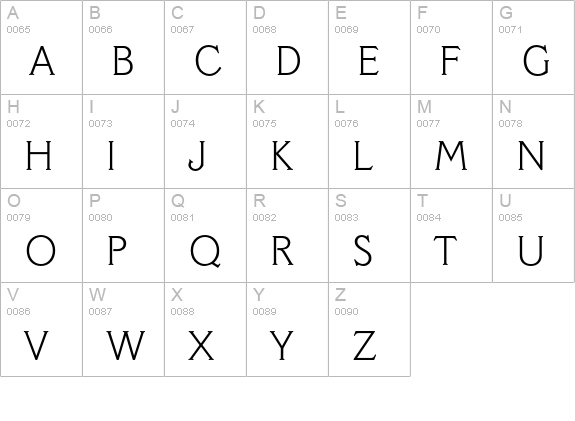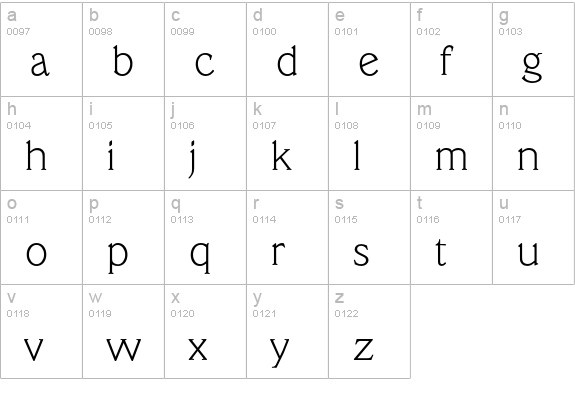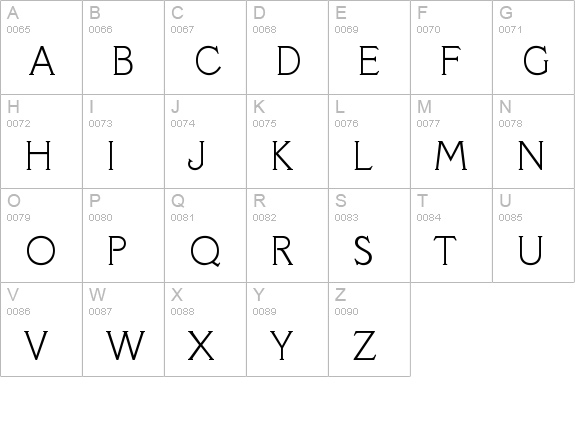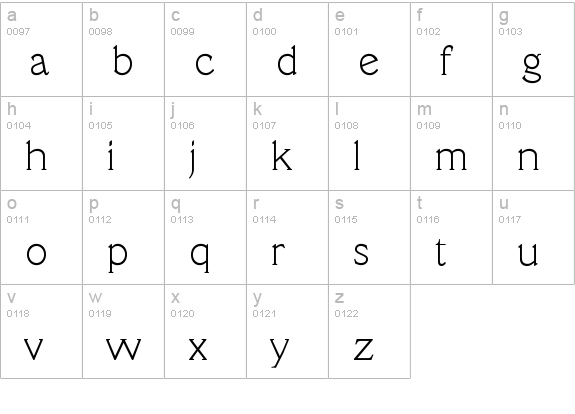
Veracruz-Xlight font is a stunning typeface that effortlessly combines elegance and simplicity. With its delicate and graceful letterforms, it adds a touch of sophistication to any design project. The thin and refined strokes create an airy and lightweight appearance, making it perfect for designs that require a subtle yet impactful visual presence. This font exudes a sense of modernity and versatility, making it suitable for a wide range of applications. Whether it's for branding, advertising, editorial design, or any other creative endeavor, Veracruz-Xlight font will elevate your work to new heights. One of the best aspects of Veracruz-Xlight font is that it is absolutely free. You can easily download it from FontsMarket.com, where it is readily available for download. This means that you can enjoy the beauty and functionality of this font without any cost or hassle. It is a valuable resource for designers and enthusiasts who are looking for a high-quality font that doesn't break the bank. The Veracruz-Xlight font is designed with meticulous attention to detail, ensuring that each glyph is crafted to perfection. Its legibility remains intact even at small sizes, making it suitable for both print and digital applications. The font also supports a wide range of languages, making it accessible to a global audience. In conclusion, Veracruz-Xlight font is a must-have for anyone seeking a sophisticated and versatile typeface. Its free availability at FontsMarket.com makes it even more appealing, as you can easily access and incorporate it into your design projects. Add a touch of elegance to your work with Veracruz-Xlight font and watch as it captivates and delights your audience.